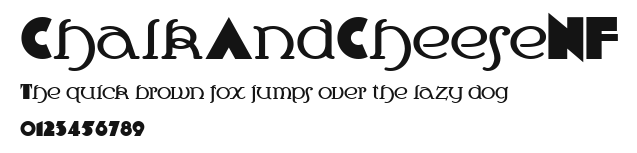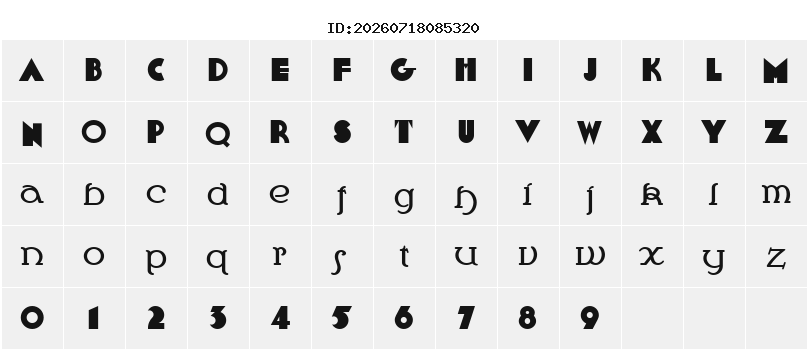
• Font Name: ChalkAndCheeseNF
• Full Font Name: ChalkAndCheeseNF Medium
• PostScript Name: ChalkAndCheeseNF-Medium
About ChalkAndCheeseNF.ttf
ChalkAndCheeseNF.ttf is a modern, elegant sans-serif font designed for ultimate readability and visual harmony. Perfect for branding, headlines, web design, and print materials.